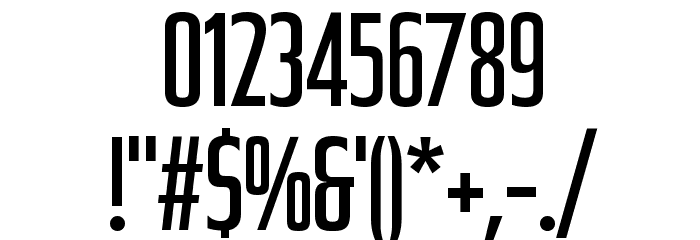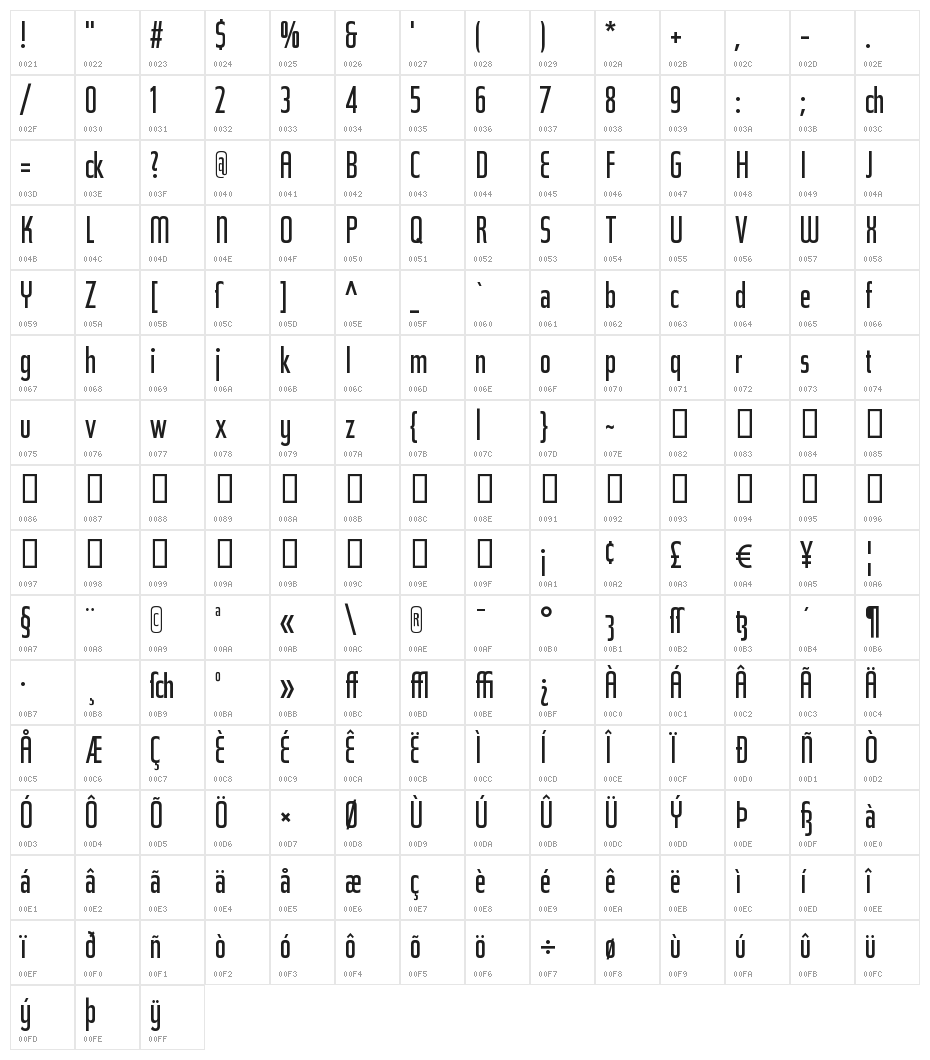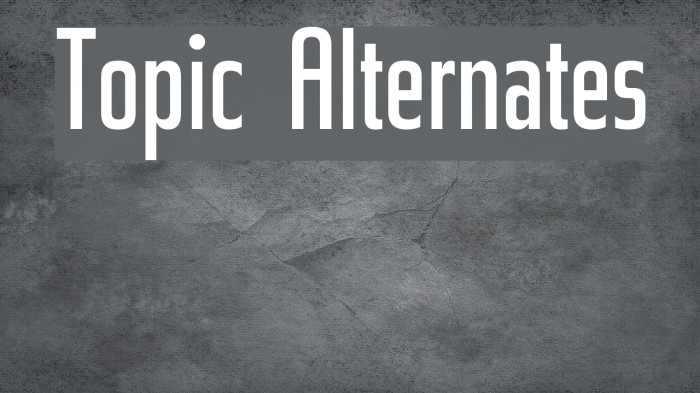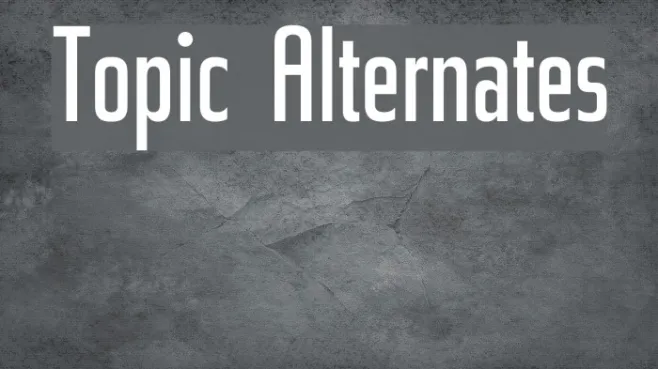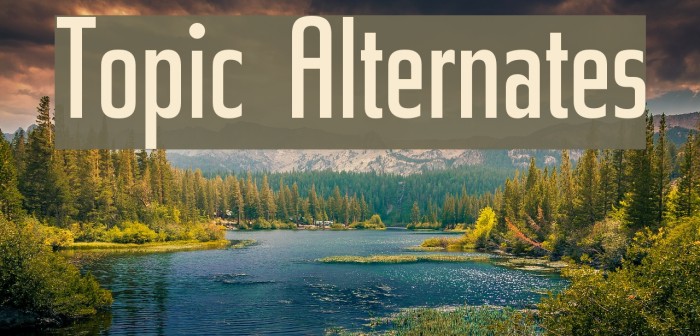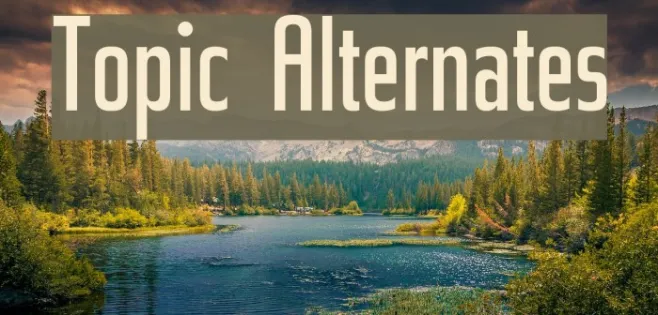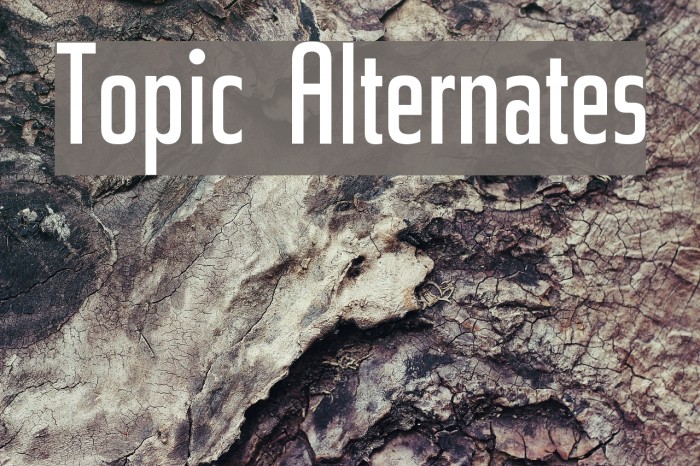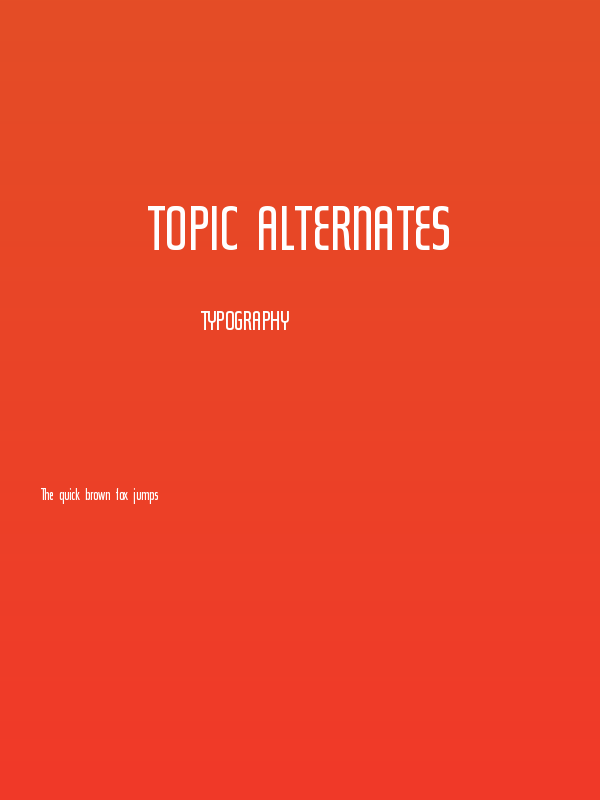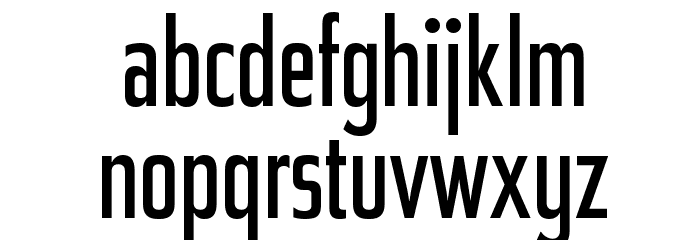
Topic Alternates Font
Topic Alternates Description
This font features a modern and sleek design with tall, narrow characters that convey a sense of elegance and sophistication. The uppercase letters are uniformly aligned with a consistent height, while the lowercase letters maintain a similar style, offering a cohesive look. The numerals are clear and easy to read, matching the overall aesthetic of the font. Special characters are well-integrated, ensuring versatility in various design contexts. The font's clean lines and minimalistic approach make it suitable for contemporary projects.